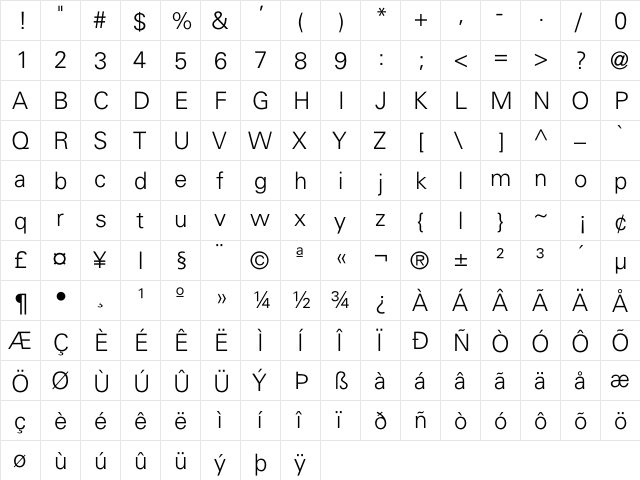
BPG Ingiri Contrast Regular
| Foundry | BPG-InfoTech |
| Designer | BPG-InfoTech |
Design Context for BPG Ingiri Contrast Typeface
BPG Ingiri Contrast offers clean, dependable letterforms without strong stylistic allegiance, making it a practical choice for designers who need flexibility.